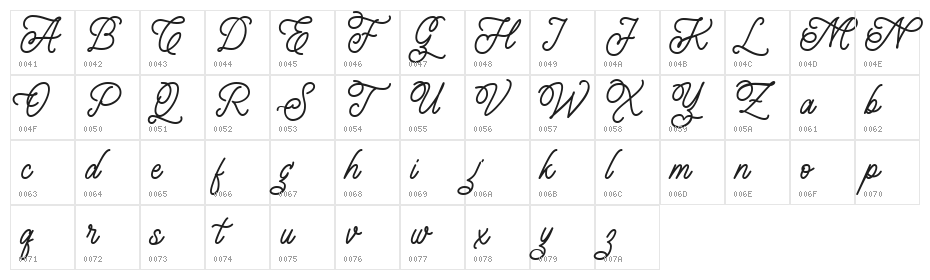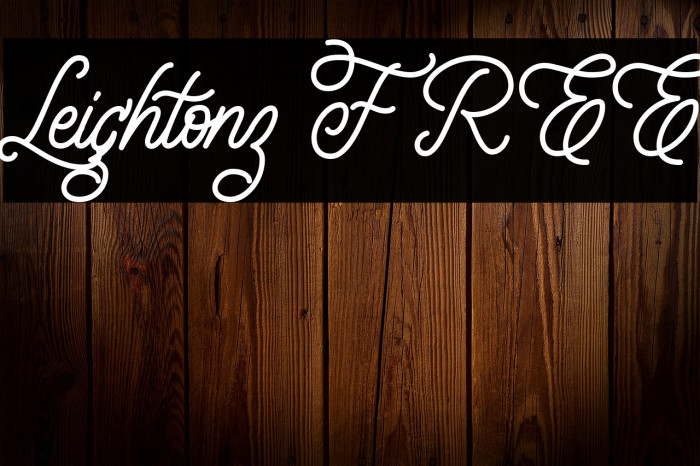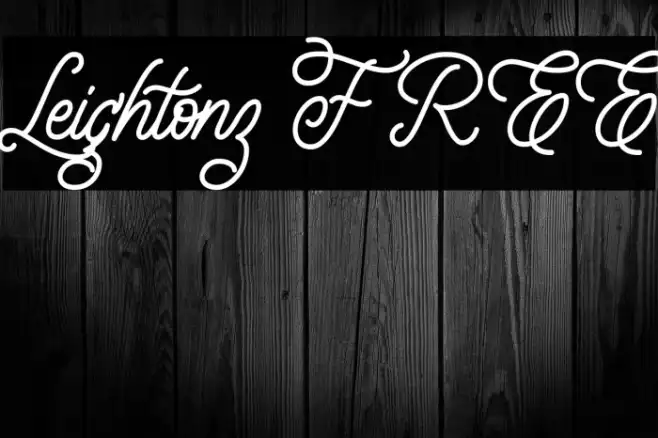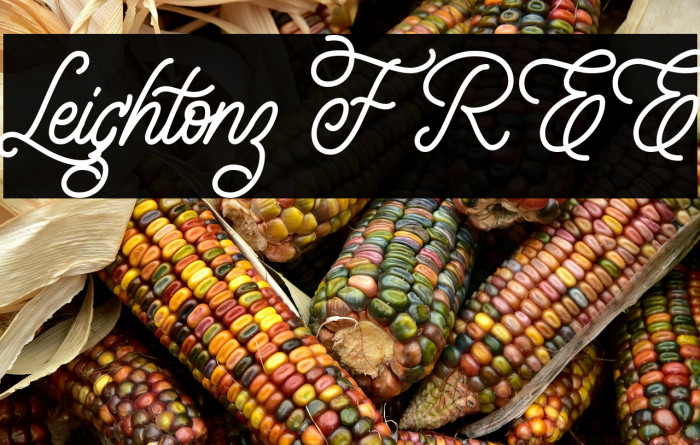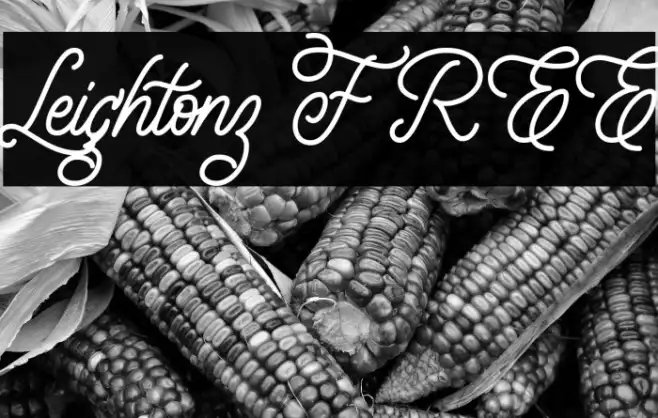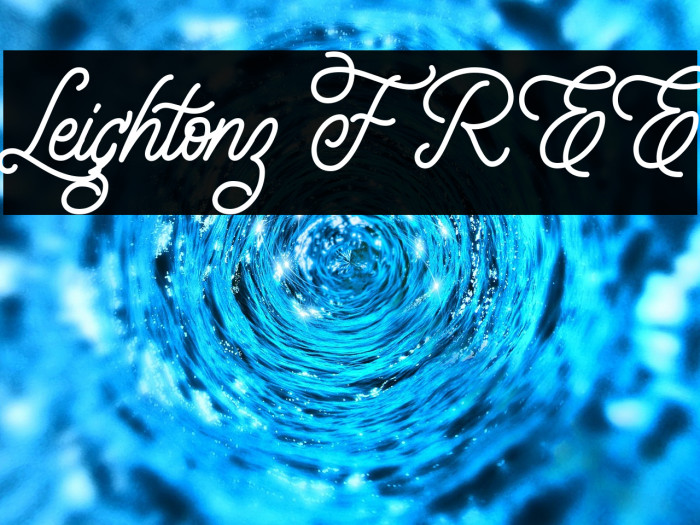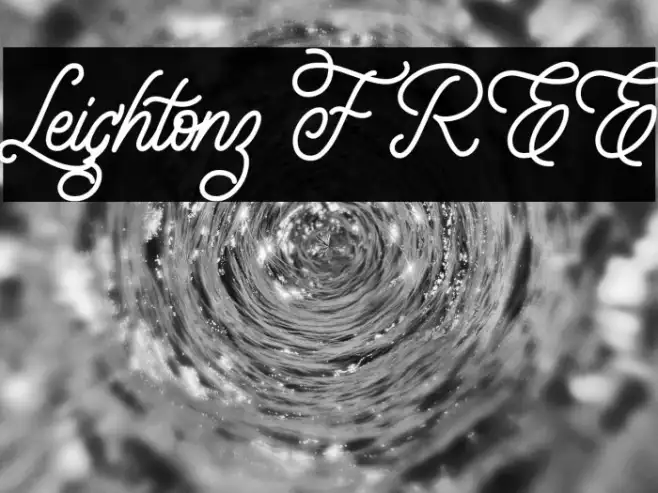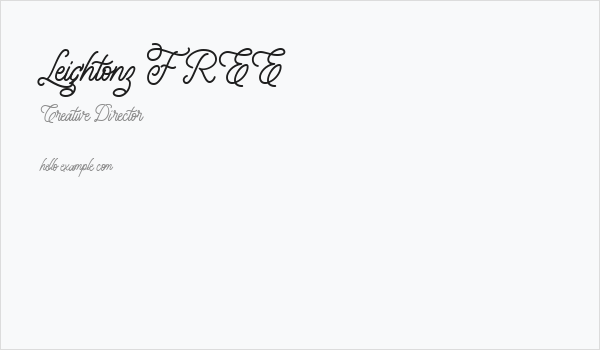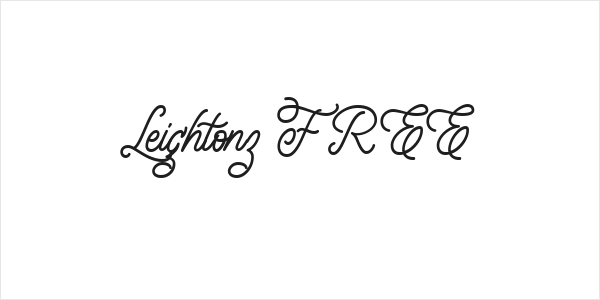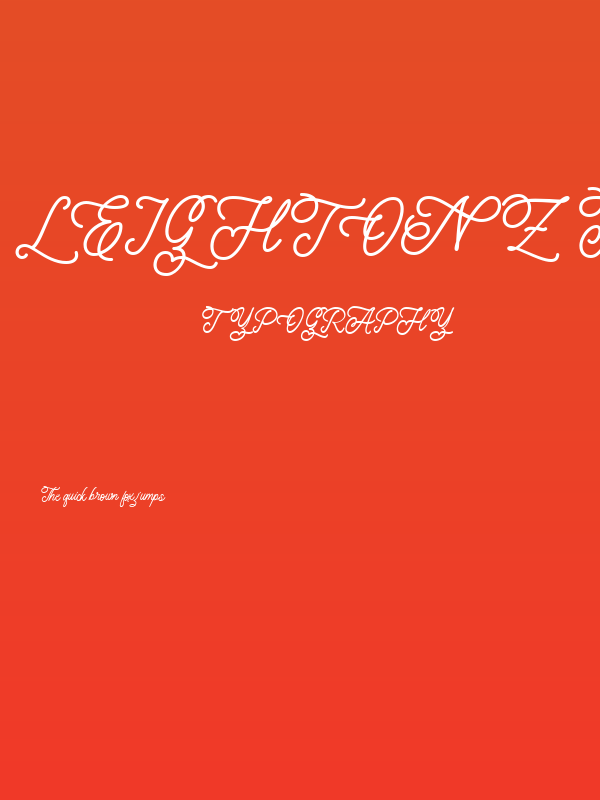
Leightonz FREE Font
Leightonz FREE Description
This font features an elegant and flowing script style, characterized by its intricate and decorative letterforms. The uppercase letters are particularly ornate, with elaborate swirls and loops that give them a sophisticated appearance. The lowercase letters maintain a consistent flow, with smooth connections between each character, enhancing the cursive aesthetic. The font's design is reminiscent of traditional calligraphy, offering a sense of grace and refinement. It is well-suited for projects that require a touch of elegance and class, such as wedding invitations, formal event programs, or luxury branding. The overall style is both classic and decorative, making it a versatile choice for various design needs.
| Overall Style | Classic, Decorative |
| Use Case | Headlines, Invitations, Branding |
| Proposed Projects | Ideal for wedding invitations, formal event programs, luxury branding, and elegant stationery. |